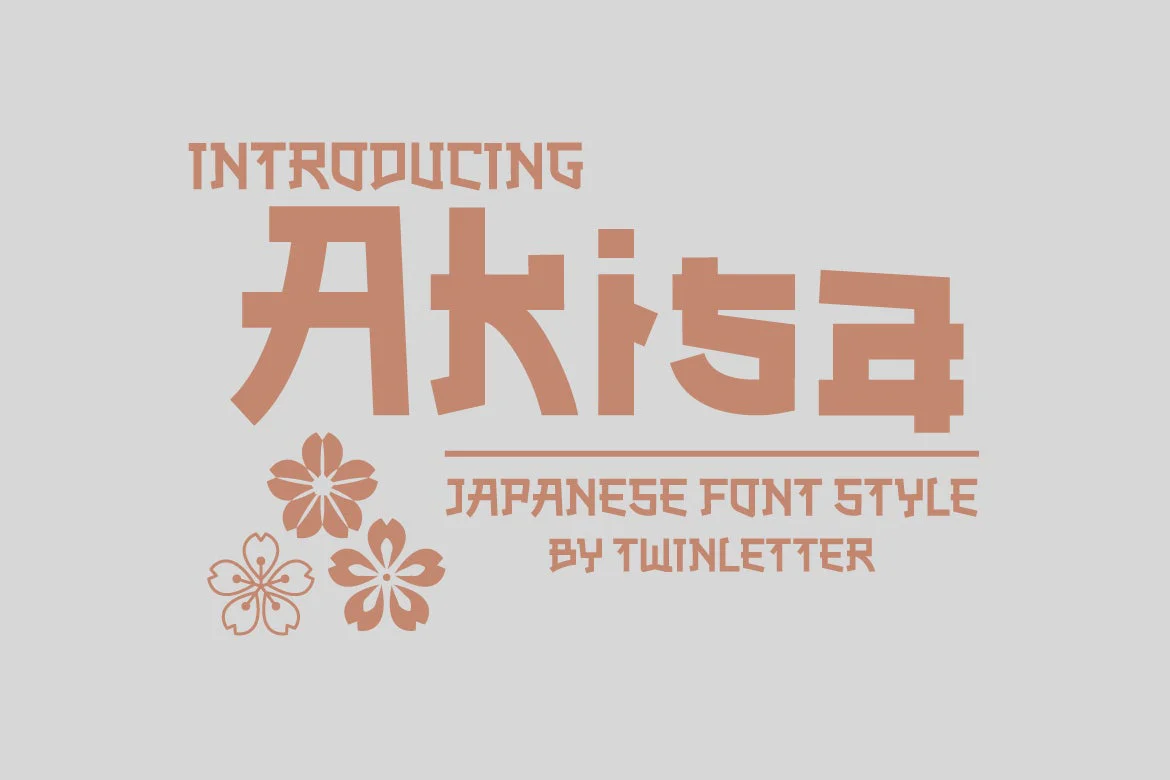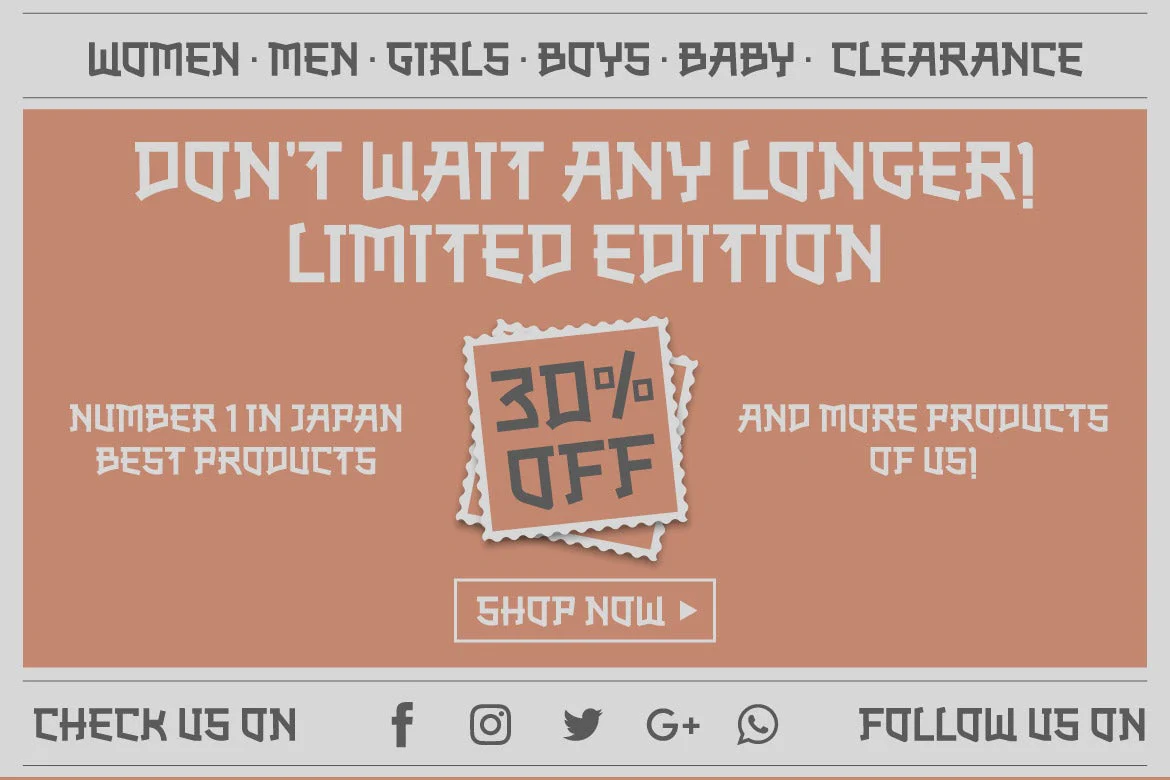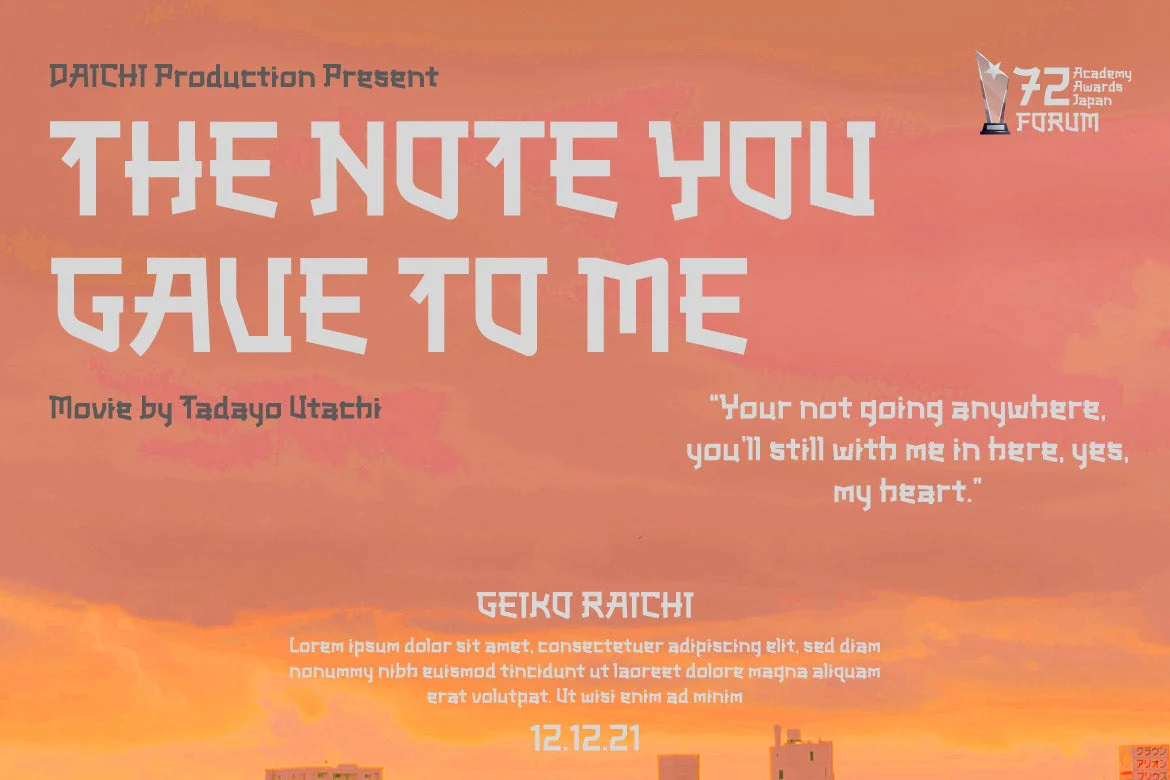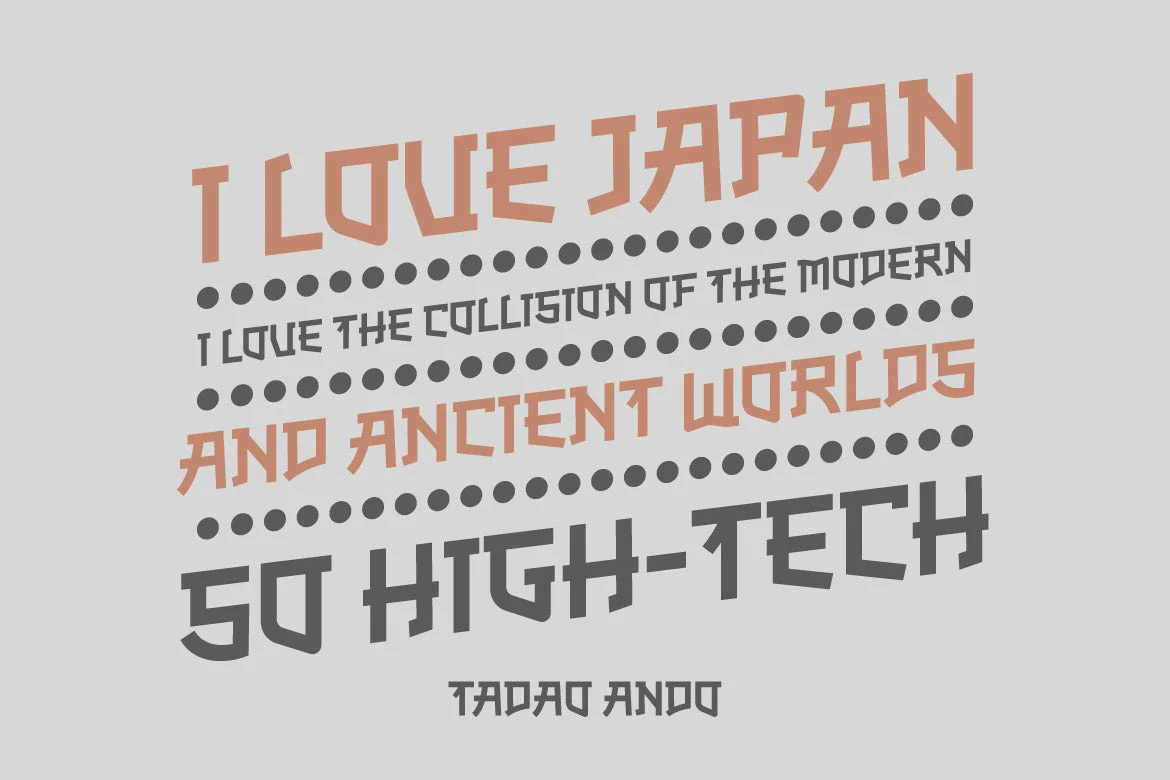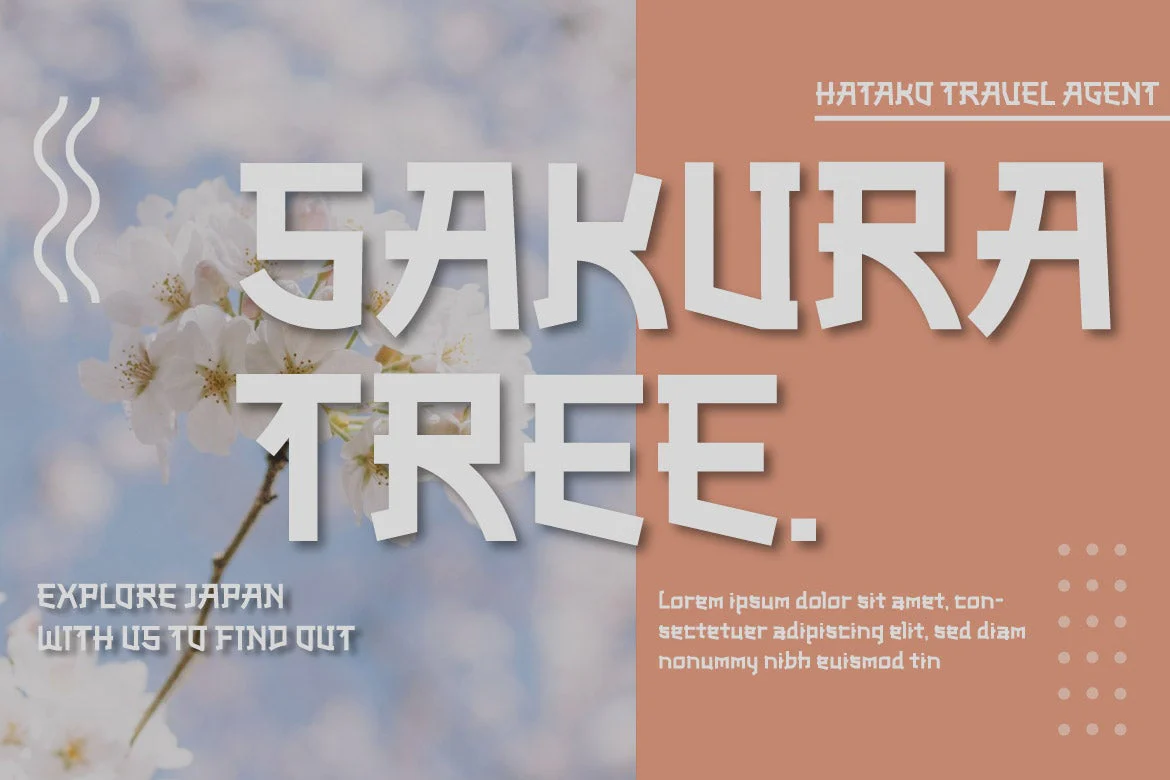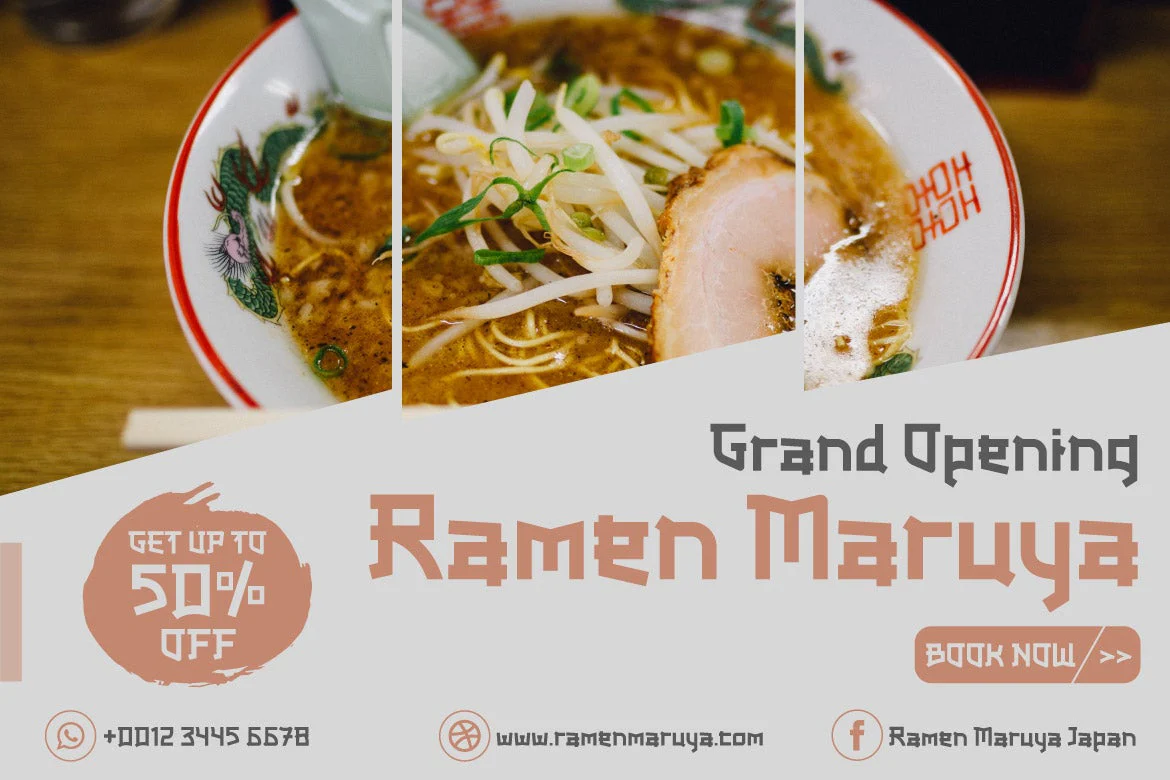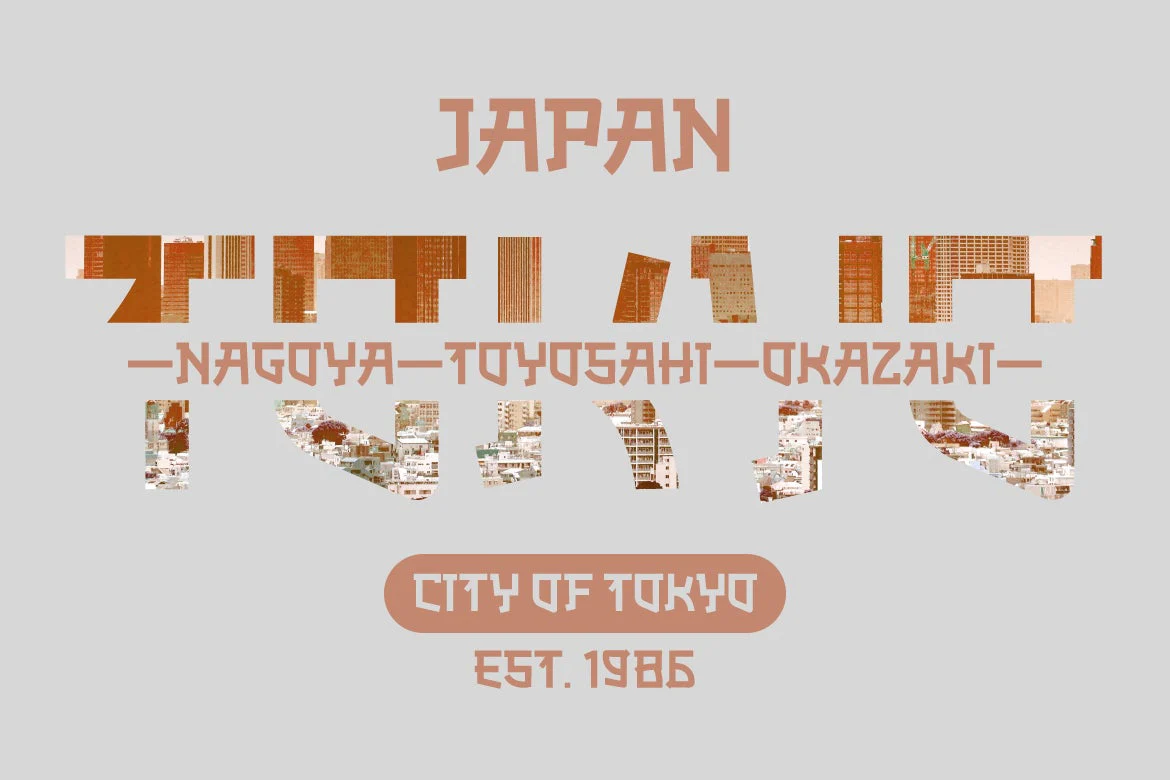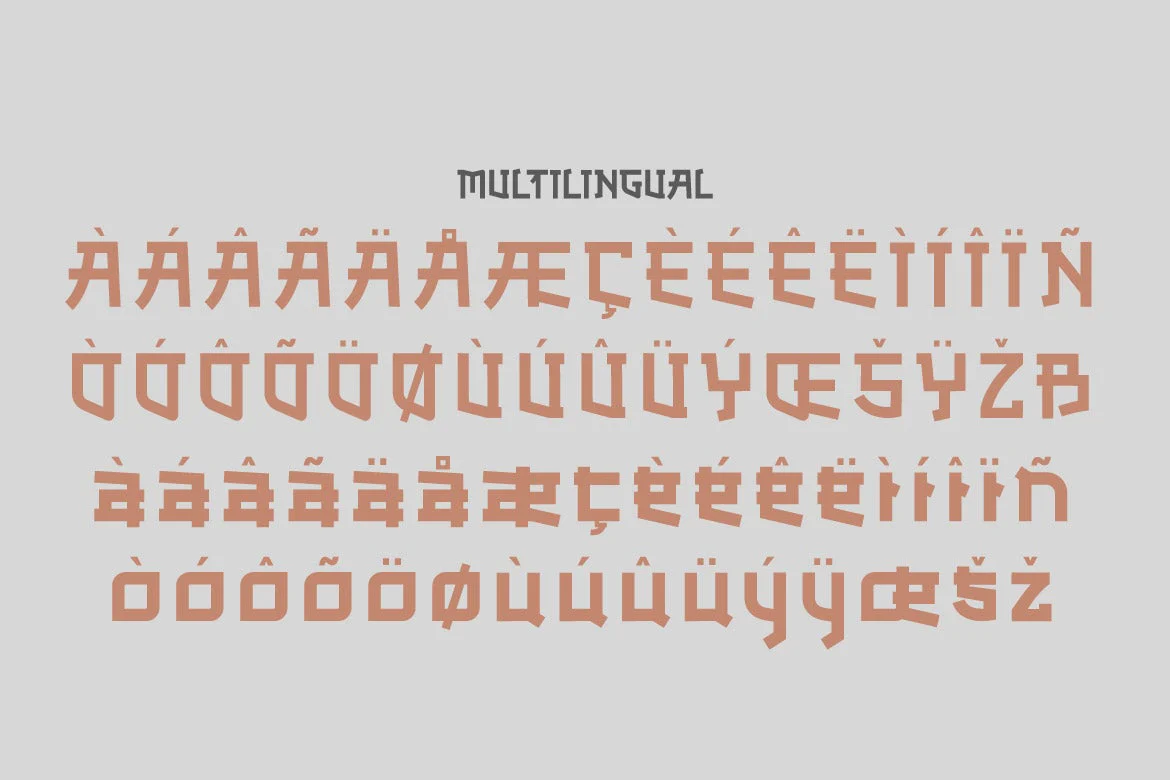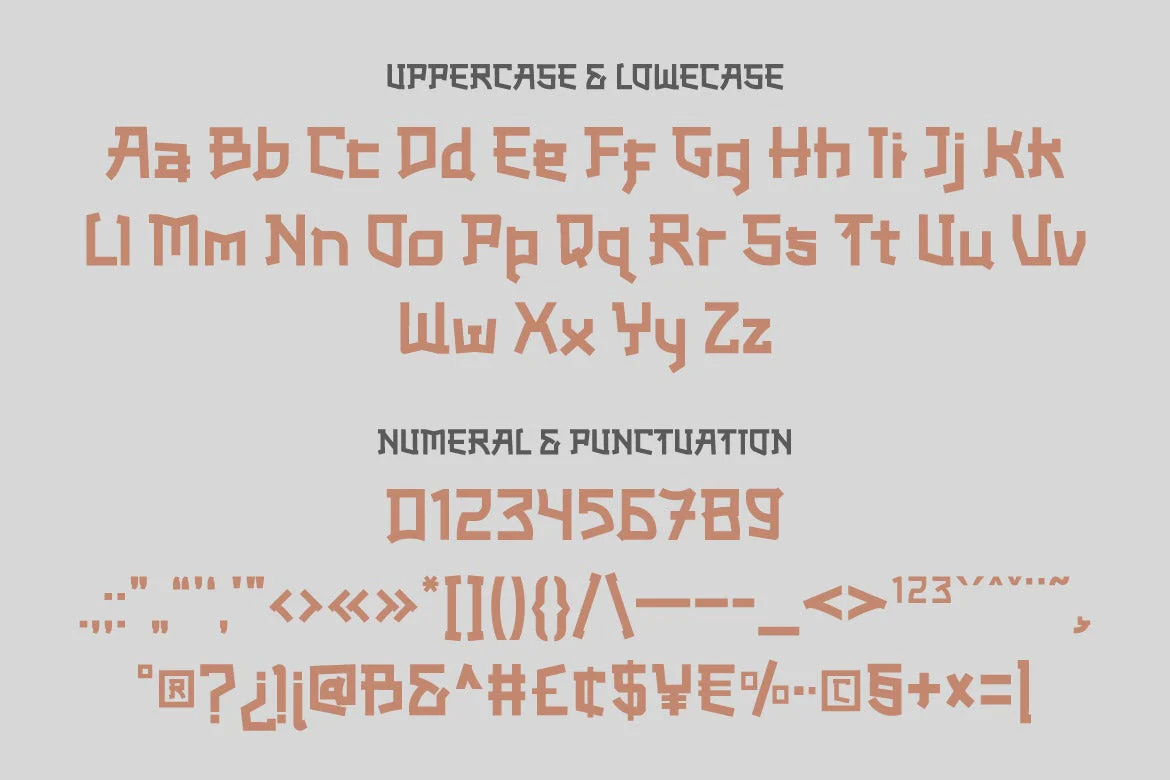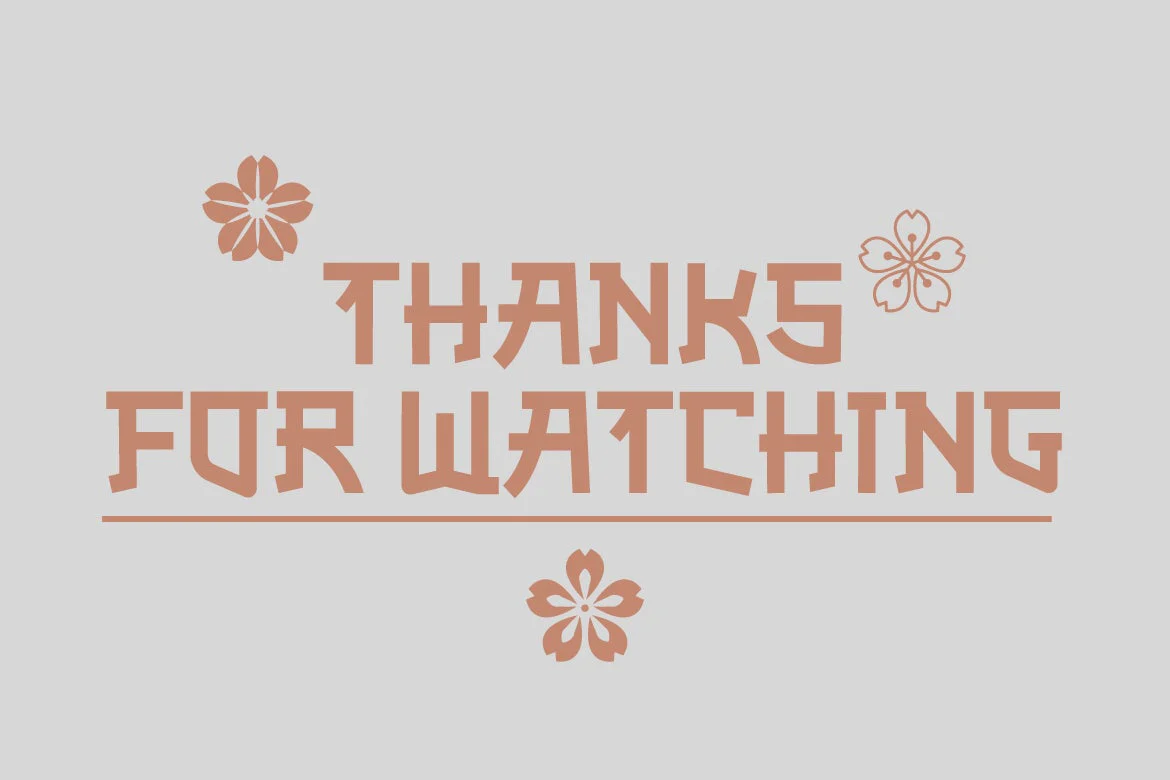
Akisa Faux Japanese Font
Akisa is a faux Japanese display typeface with amusing character characters that you may use for a variety of design projects. You will create a project that is striking and memorable in the minds of the entire audience if you use this typeface.
Logotypes, food banners, branding, brochure, posters, movie titles, book titles, quotes, and more may all benefit from this font.
Of course, using this font in your various design projects will make them excellent and outstanding; many viewers are drawn to the striking and unusual graphic display.
Start utilizing this typeface in your projects to make them stand out.
Akisa is a faux Japanese display typeface with amusing character characters that you may use for a variety of design projects. You will create a project that is striking and memorable in the minds of the entire audience if you use this typeface.
Logotypes, food banners, branding, brochure, posters, movie titles, book titles, quotes, and more may all benefit from this font.
Of course, using this font in your various design projects will make them excellent and outstanding; many viewers are drawn to the striking and unusual graphic display.
Start utilizing this typeface in your projects to make them stand out.